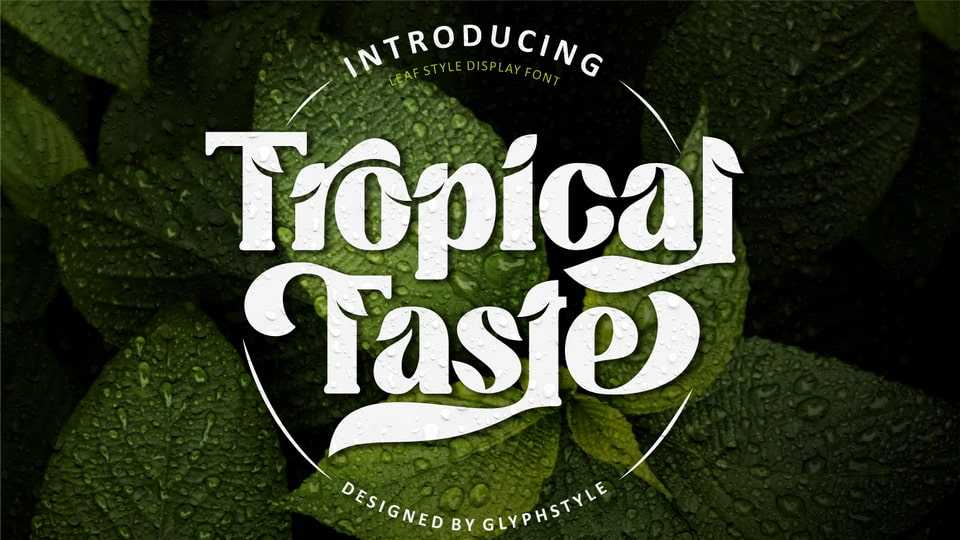
Tropical Taste Font › Fontesk – Download Grátis
Download Tropical Taste font, a sans serif typeface with a plant theme. Letters with a combination of leaf shapes have various variations to beautify writing